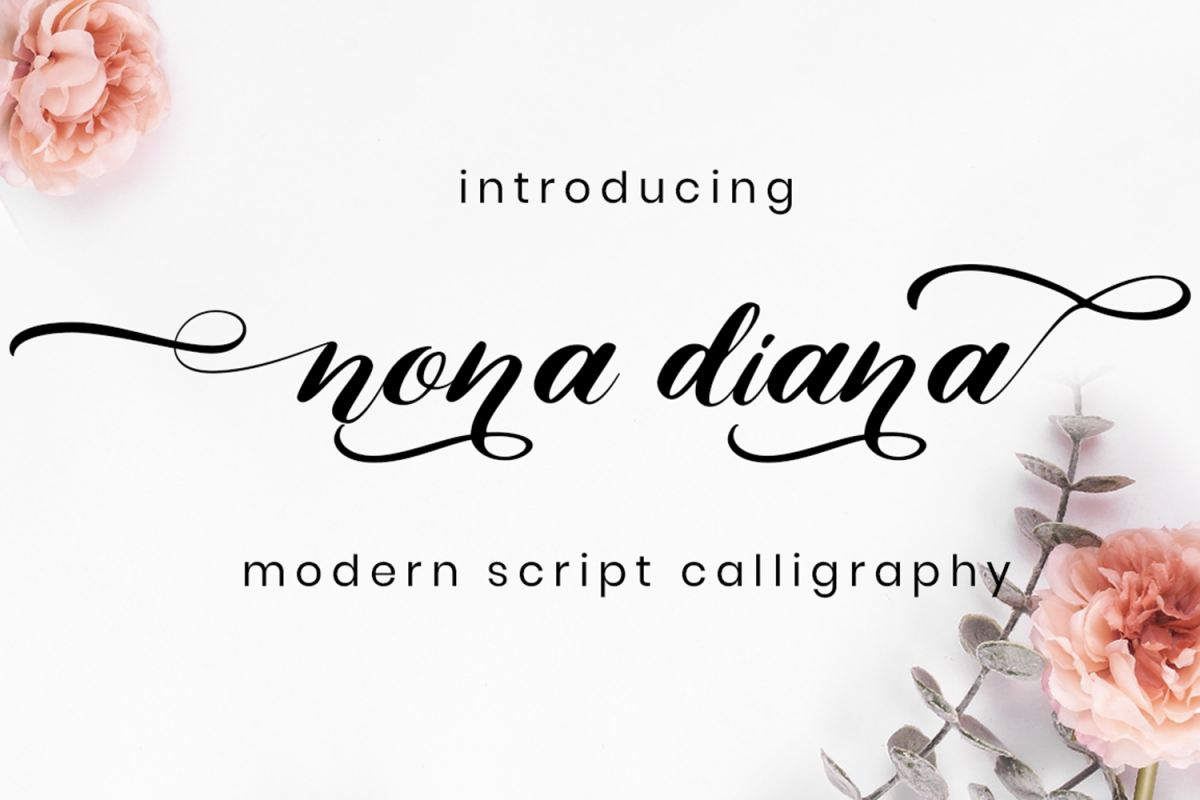
Nona Diana is modern script calligraphy font, include front swash and ending swash for lowercase glyph, combine it to make the best word for your design.
Nona Diana font perfectly macth for design like banner, book cover, t-shirt, branding, promotion, social media post, quotes, wedding, photography and more.